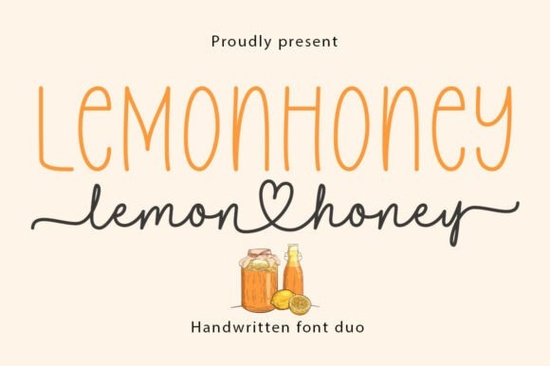
When you're looking for a font that brings a homemade, organic feel to your projects, the Lemonhoney Duo Font is a fantastic choice. This sweet and versatile handwritten font duo is perfect for adding a touch of natural, handcrafted charm to your designs.
What Makes Lemonhoney Duo Font Special?
Lemon Honey is a unique pairing of two complementary fonts: a whimsical, tall all-caps Sans Serif and a smooth, elegant connecting script. The Sans Serif is ideal for headlines, giving your text a bold and eye-catching look, while the script font adds a touch of elegance and fluidity, making it perfect for supporting text and signatures.
Why Choose Lemonhoney Duo Font?
The Lemonhoney Duo Font is designed to be versatile and easy to use. Here are a few reasons why it stands out:
- Versatile Design: The combination of an all-caps Sans Serif and a connecting script allows for a wide range of design possibilities, from branding and packaging to wedding invites and food blogs.
- Natural Charm: The handcrafted, organic feel of the fonts adds a personal and authentic touch to your projects, making them more relatable and engaging.
- Lovely Ligatures and Swashes: The font includes charming ligatures and a heart swash, which can add a special touch to your designs and make them stand out.
How Can You Use Lemonhoney Duo Font?
Whether you're a designer, crafter, or a small business owner, the Lemonhoney Duo Font can be a valuable addition to your toolkit. Here are some creative ways to use it:
- Branding: Create a memorable brand identity with the unique and charming style of Lemon Honey. Use the Sans Serif for your logo and the script for taglines and additional text.
- Packaging: Add a personal touch to your product packaging with this font. It's perfect for labels, tags, and other packaging elements that need a handmade, organic feel.
- Wedding Invitations: Craft beautiful and elegant wedding invitations with the smooth, flowing script. Pair it with the Sans Serif for a balanced and sophisticated look. If you need more options, check out the Wedding Font Script Fonts.
- Food Blogs and Menus: Give your food blog or menu a fresh, inviting look with the Lemonhoney Duo Font. The natural, handcrafted style complements food-related content perfectly.
Tips for Using Lemonhoney Duo Font Effectively
To get the most out of the Lemonhoney Duo Font, here are a few tips:
- Balance Your Text: Use the Sans Serif for headings and the script for body text or signatures to create a balanced and visually appealing layout.
- Experiment with Ligatures and Swashes: Don't be afraid to play around with the ligatures and the heart swash. They can add a unique and personalized touch to your designs.
- Test Different Sizes and Colors: Try different font sizes and colors to see what works best for your project. The versatility of the font allows for a wide range of creative possibilities.